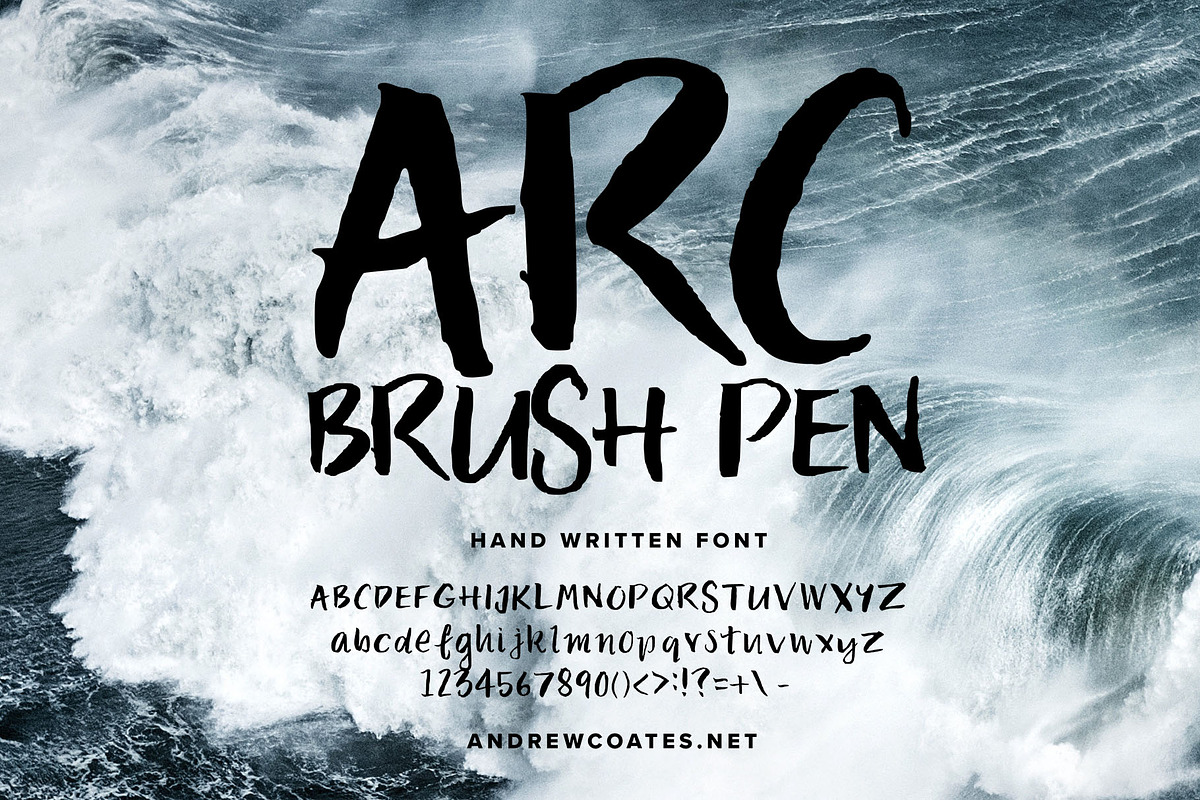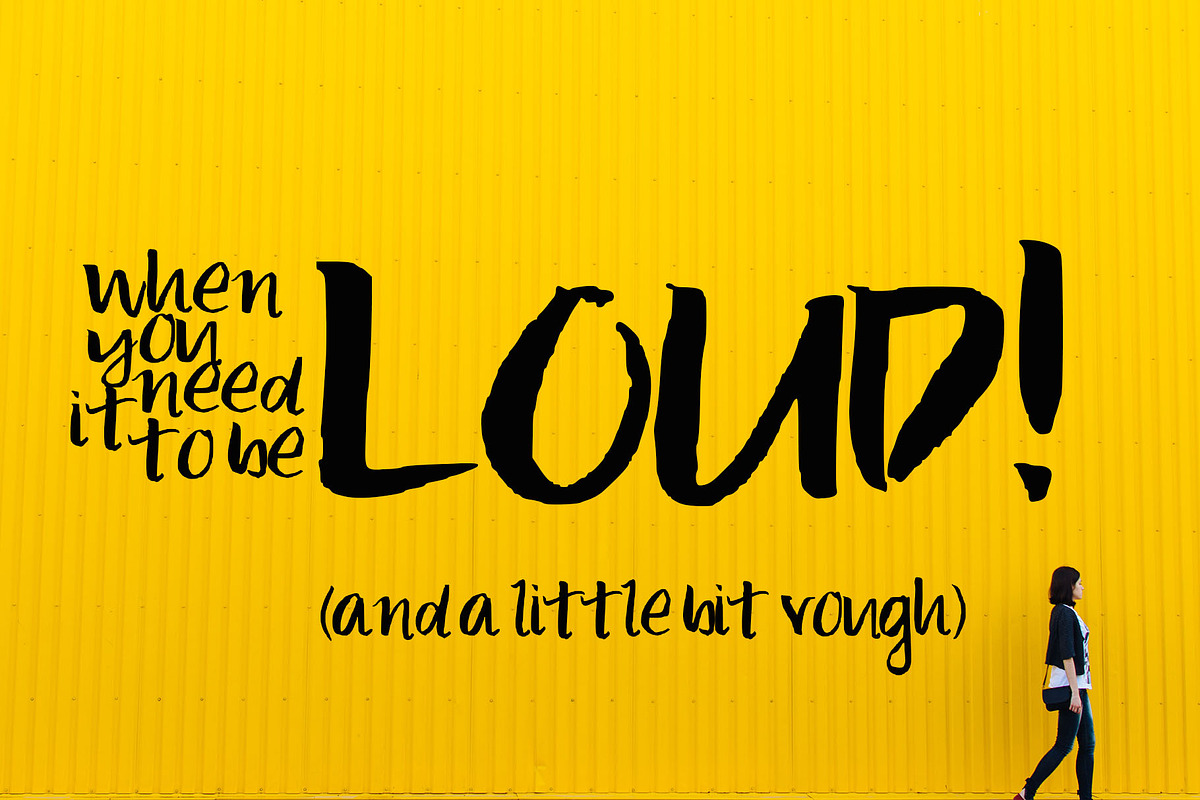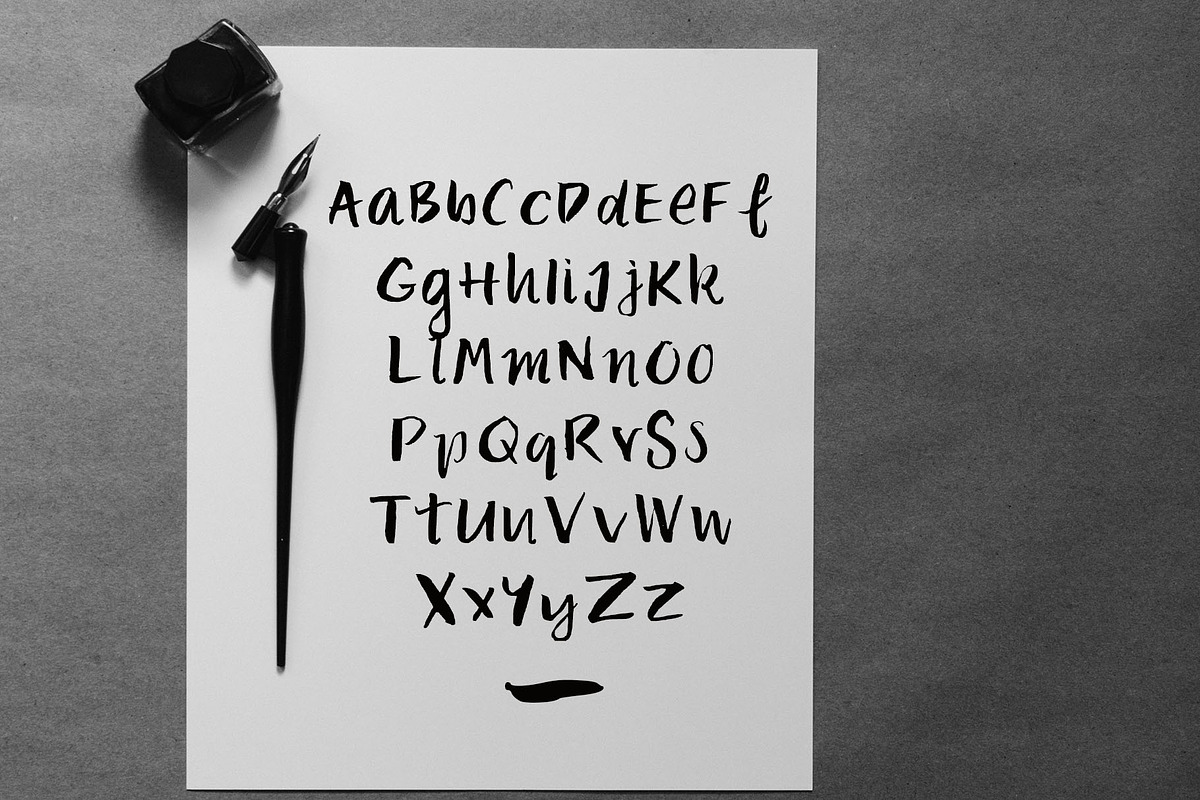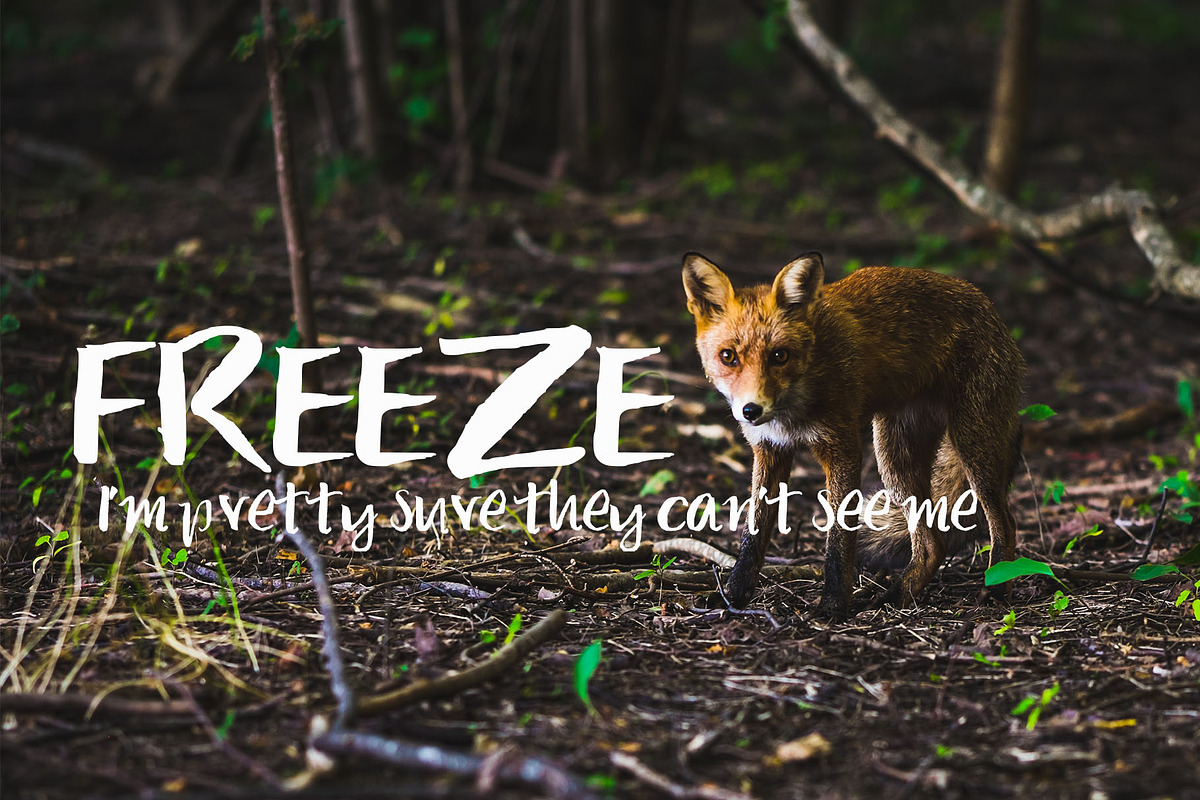
Font: ARC Brush Pen
These bolds font were created by hand using a Pentel Brush Pen (my favourite pen!) and a variety of other brush and felt tip pens.
Unlike a lot of handwritten fonts available, each letter was hand drawn using ink on paper; and not on an iPad. This gives a more authentic shape that doesn’t have all the automatic correction that writing/drawing apps include. These apps are great, but they’re to hand lettering what autotune is to singer. Useful and effective, but not quite authentic.
After being written on quality heavy weighted paper, each letter of these handwritten fonts is then digitised and converted to glyphs. The kerning (spacing between letters) for each letter combination is meticulously adjusted to an enhanced typing experience.
My fonts are not for perfectionists who like everything straight and looking like it was created by a computer, (I love and use a bunch of those fonts myself, these just aren’t them!). They are however perfect for big posters, artworks, digital marketing and social media where you’re looking to make a bold statement without losing that sense of human creativity.